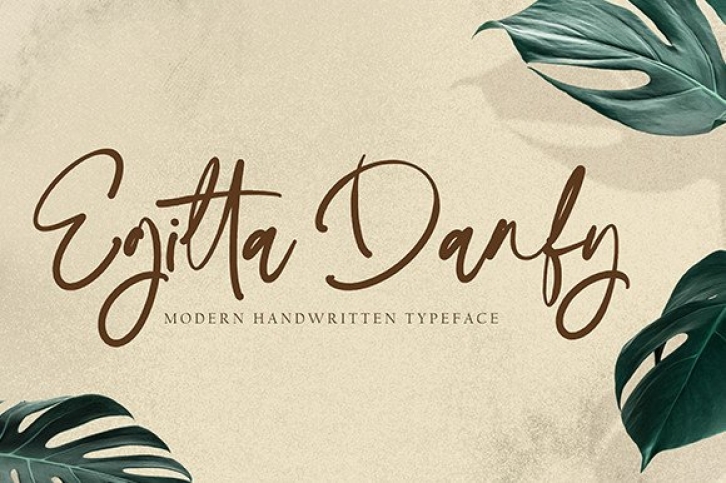
Egitta Danfy is a fresh and authentic handwritten font. It is perfect for many different projects such as quotes, logos, blog headers, posters, banding, letters, invitations, stationery, etc.